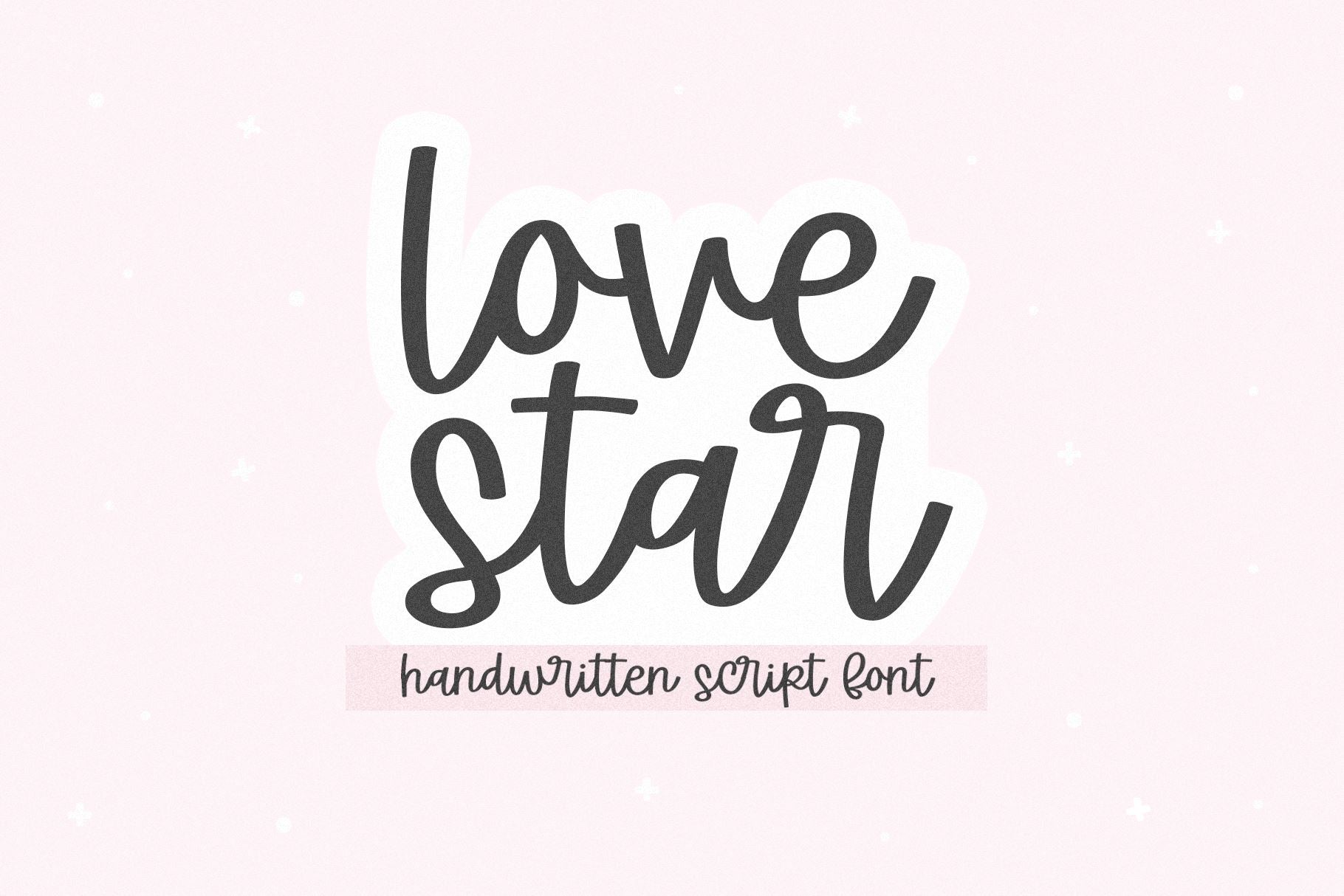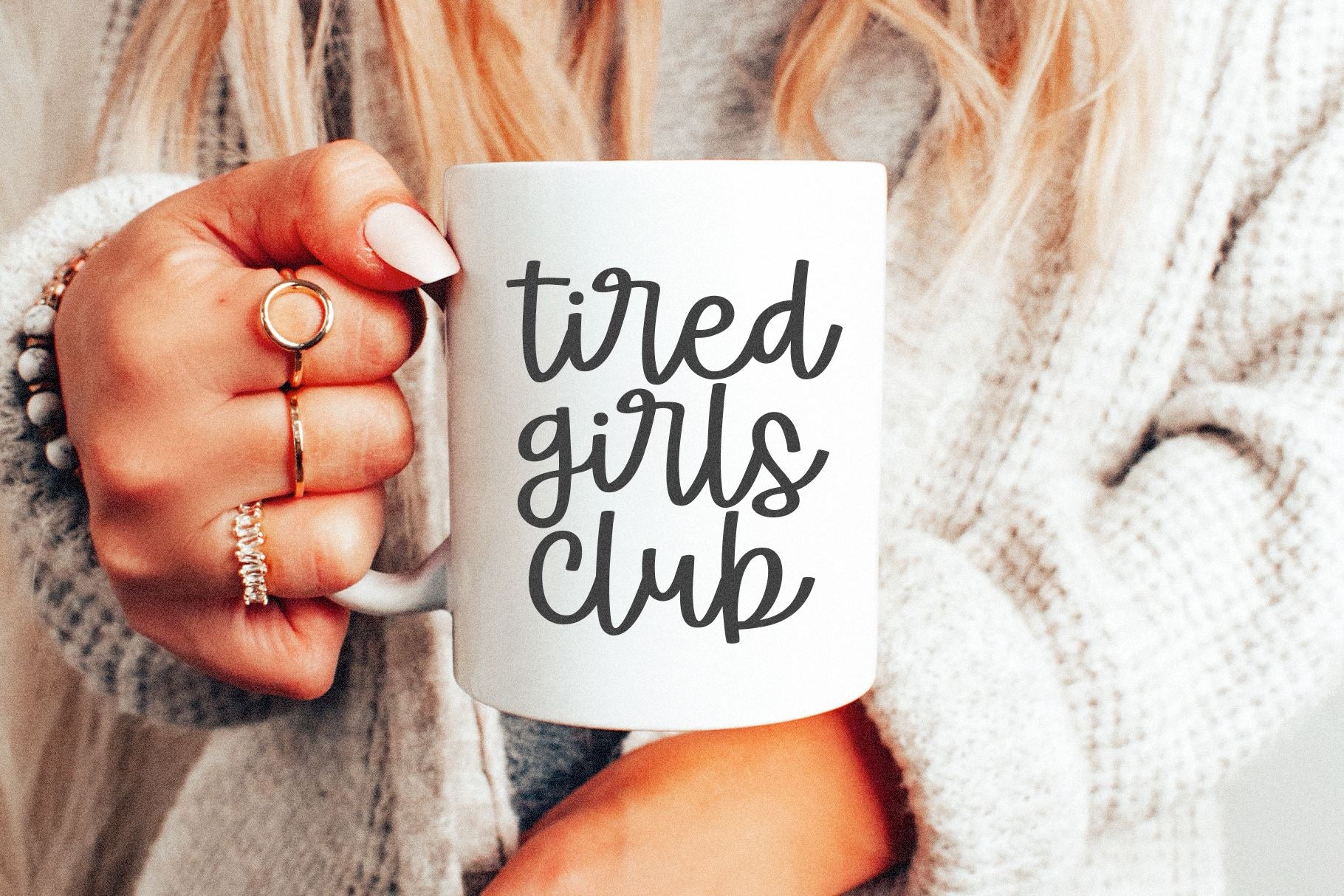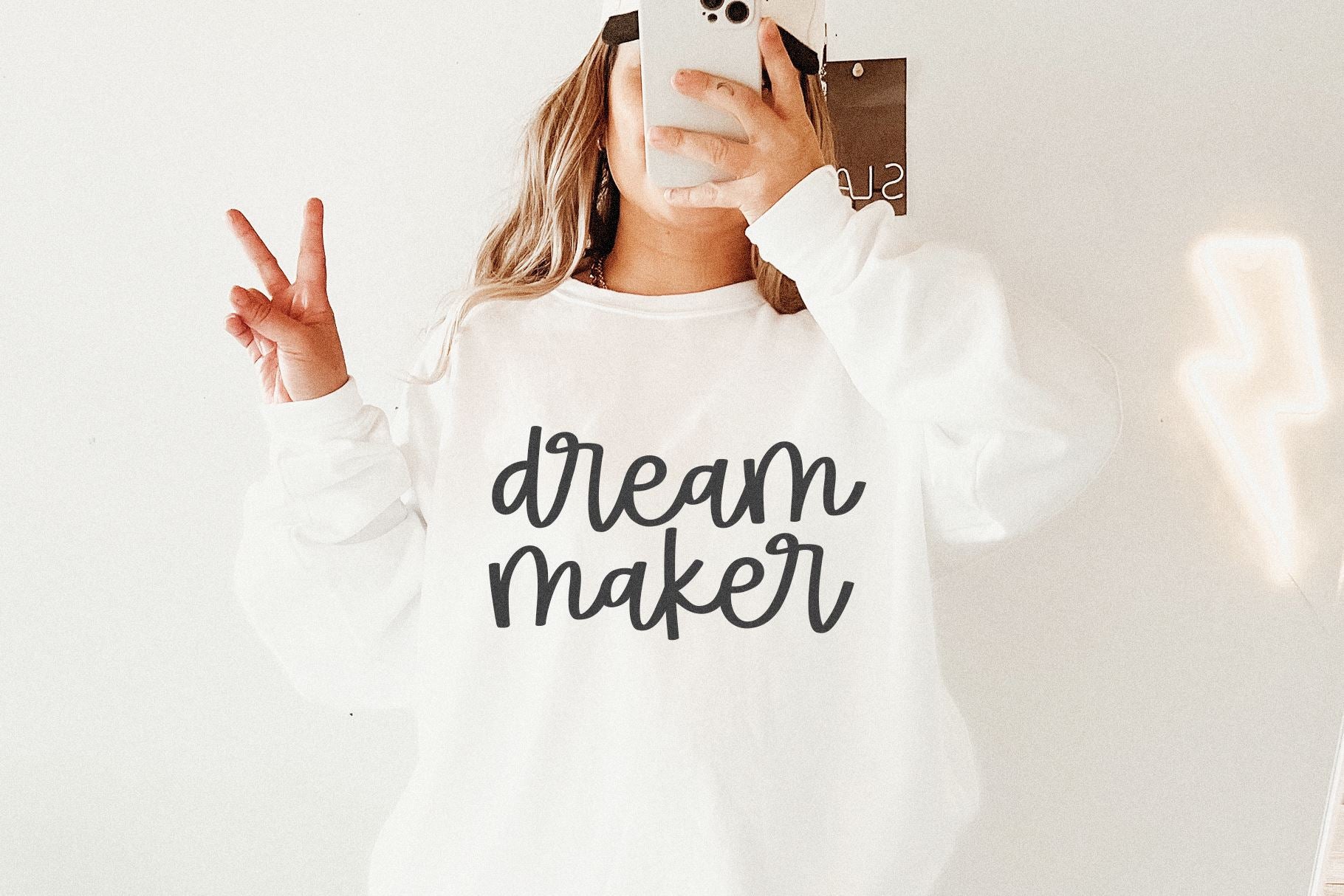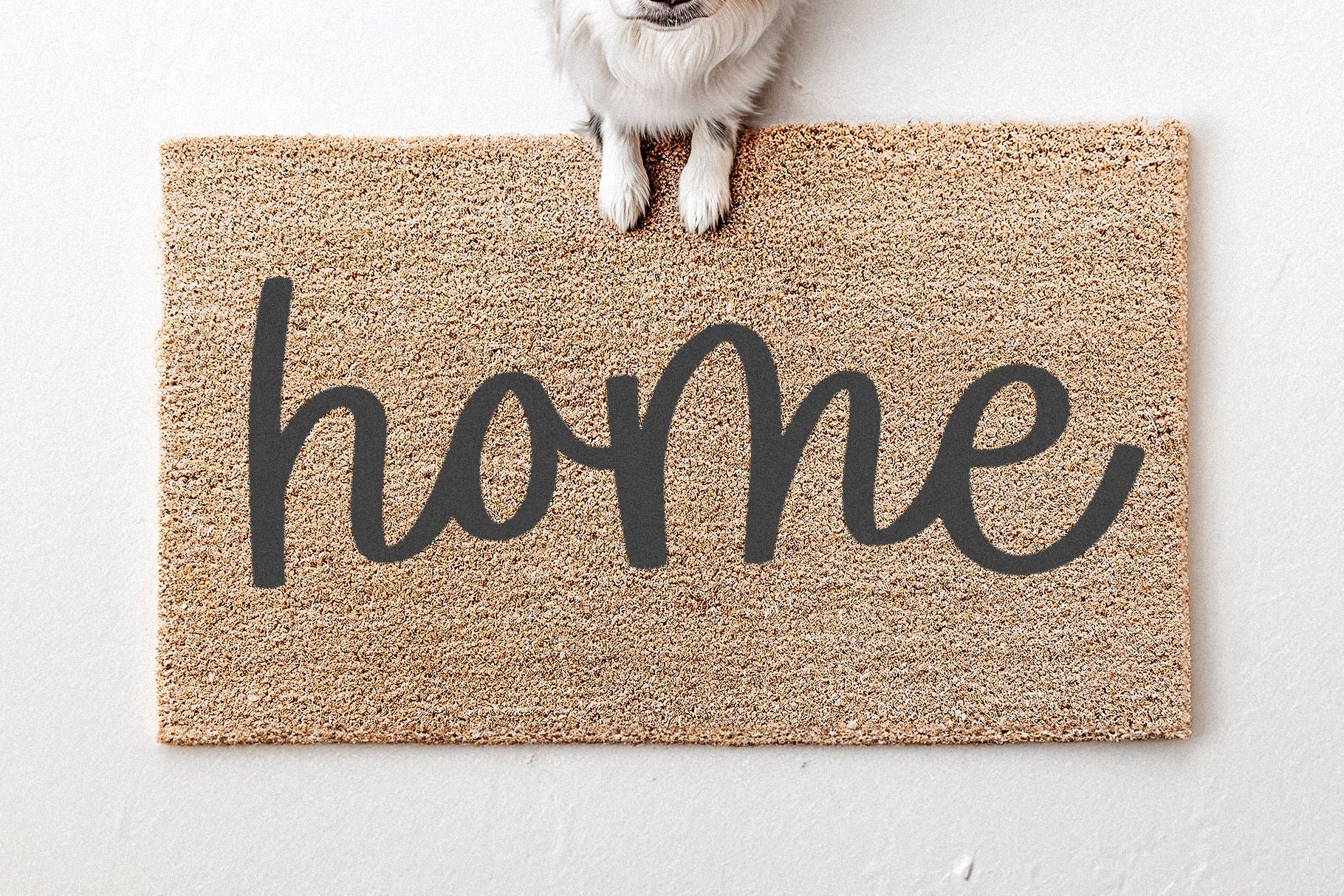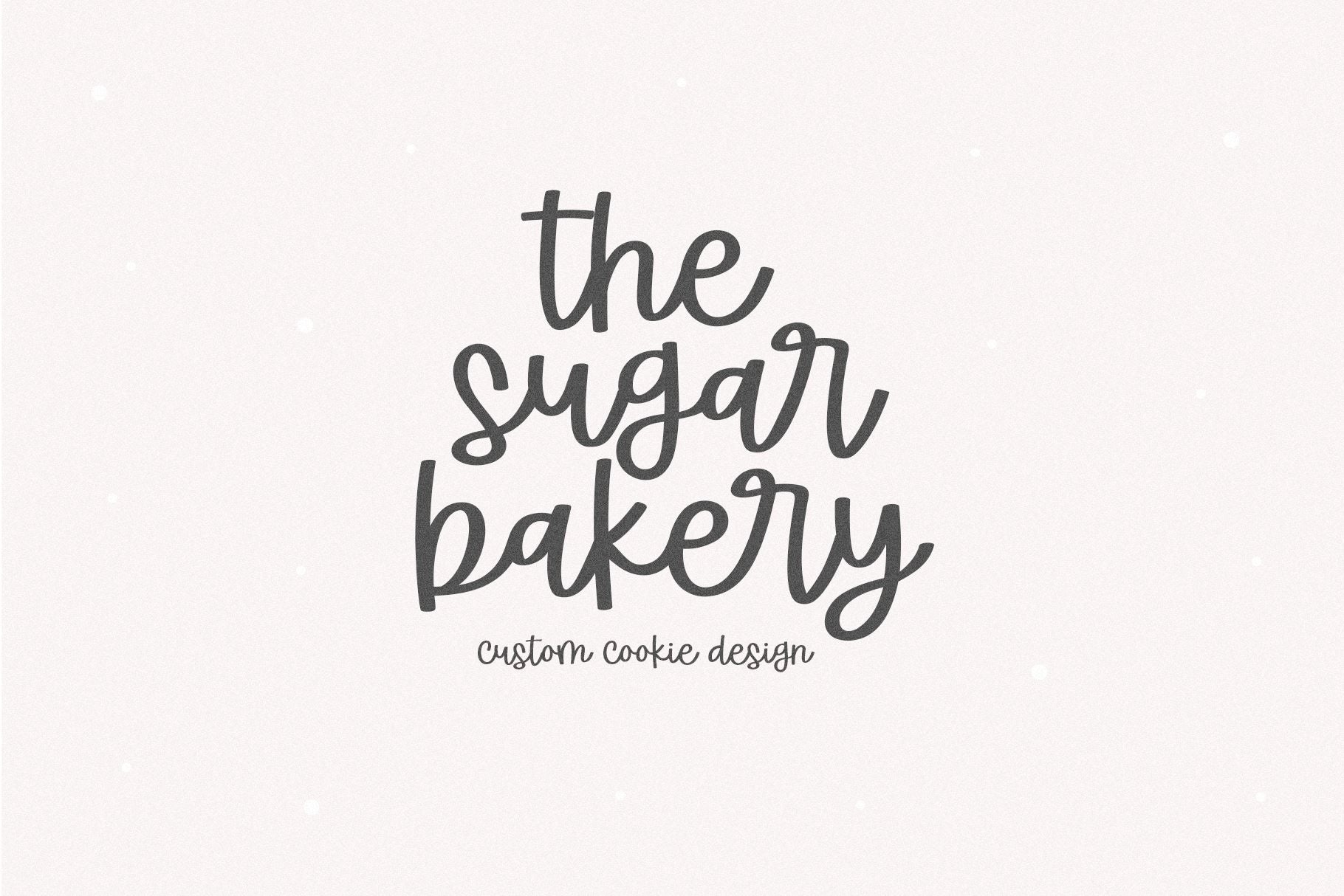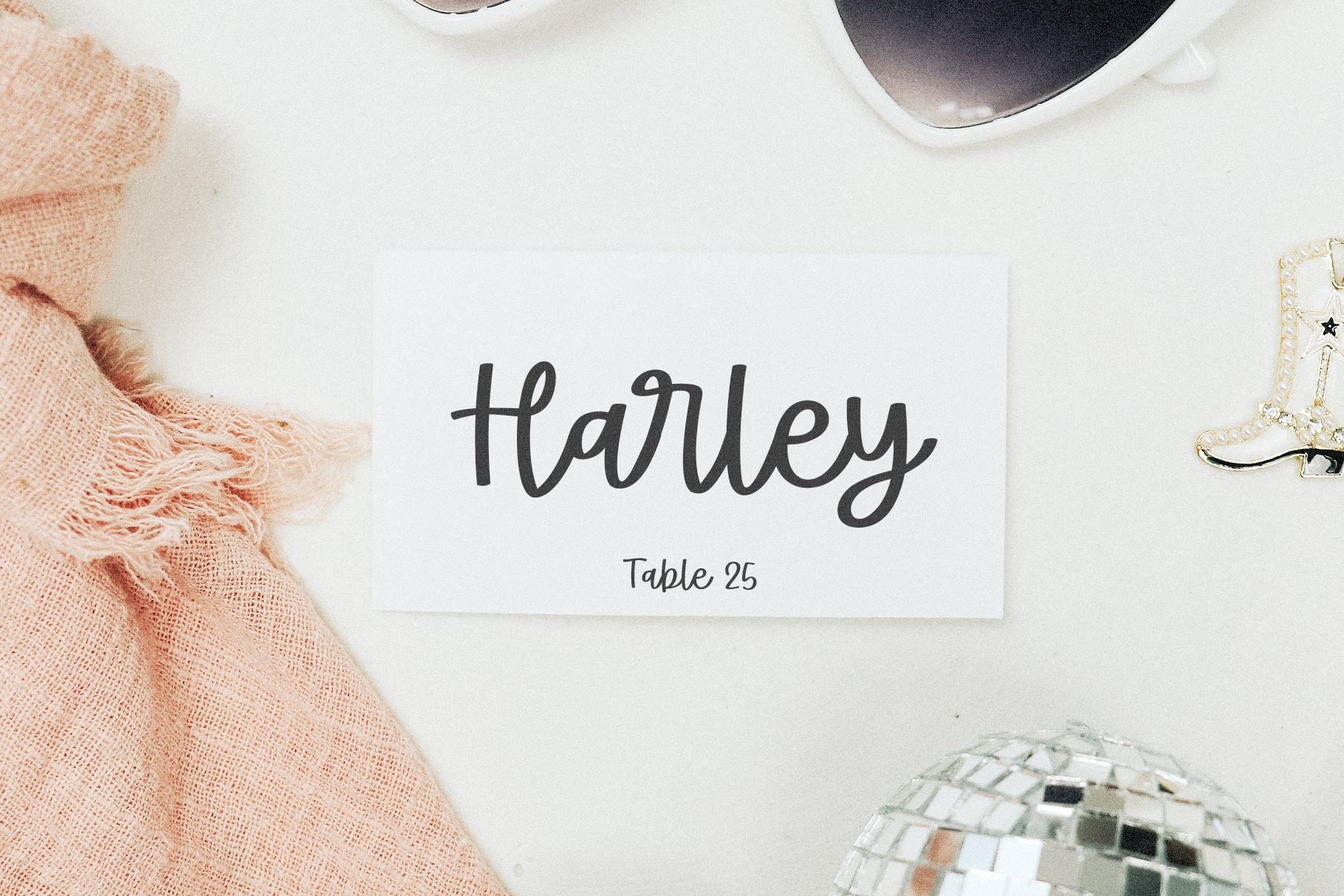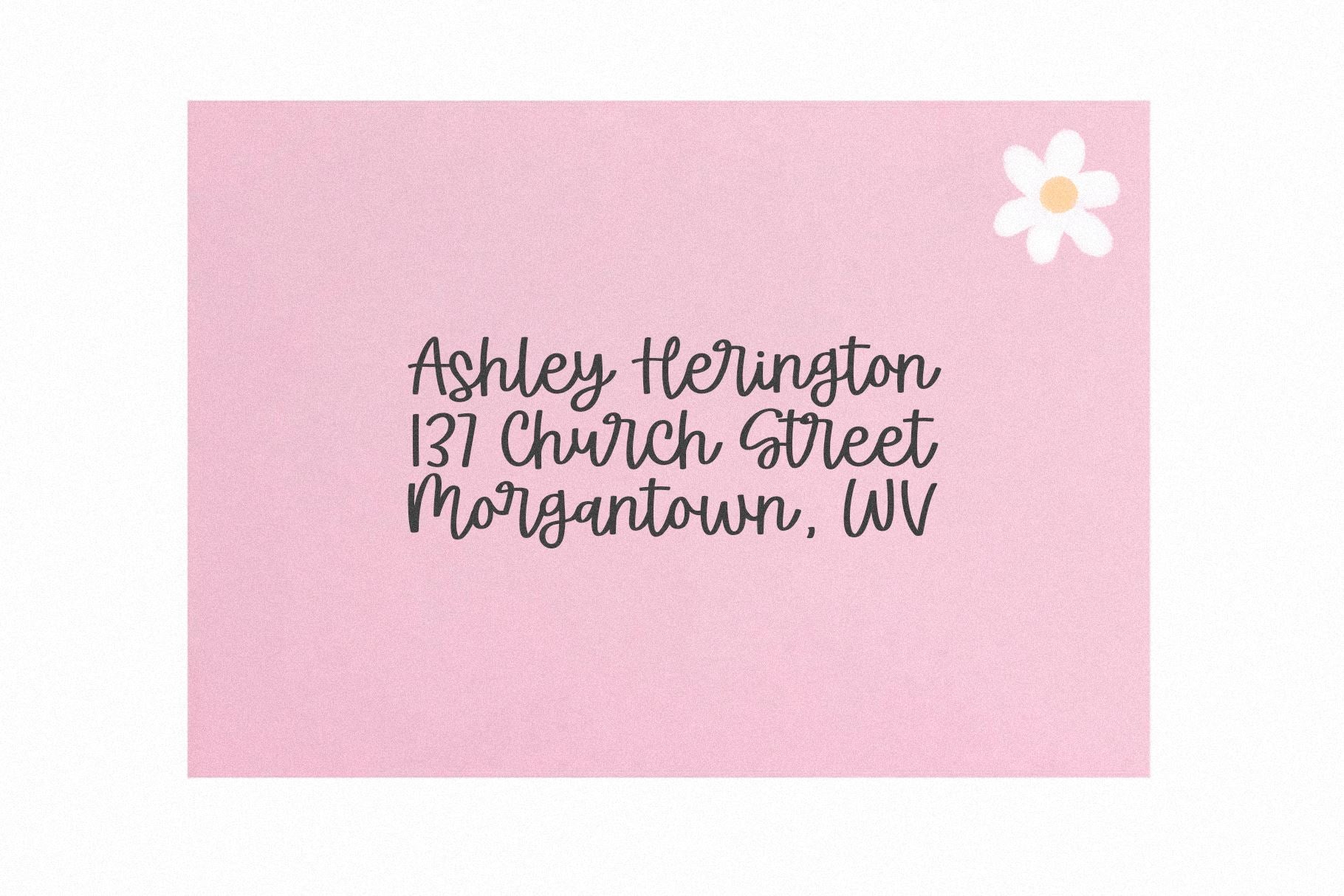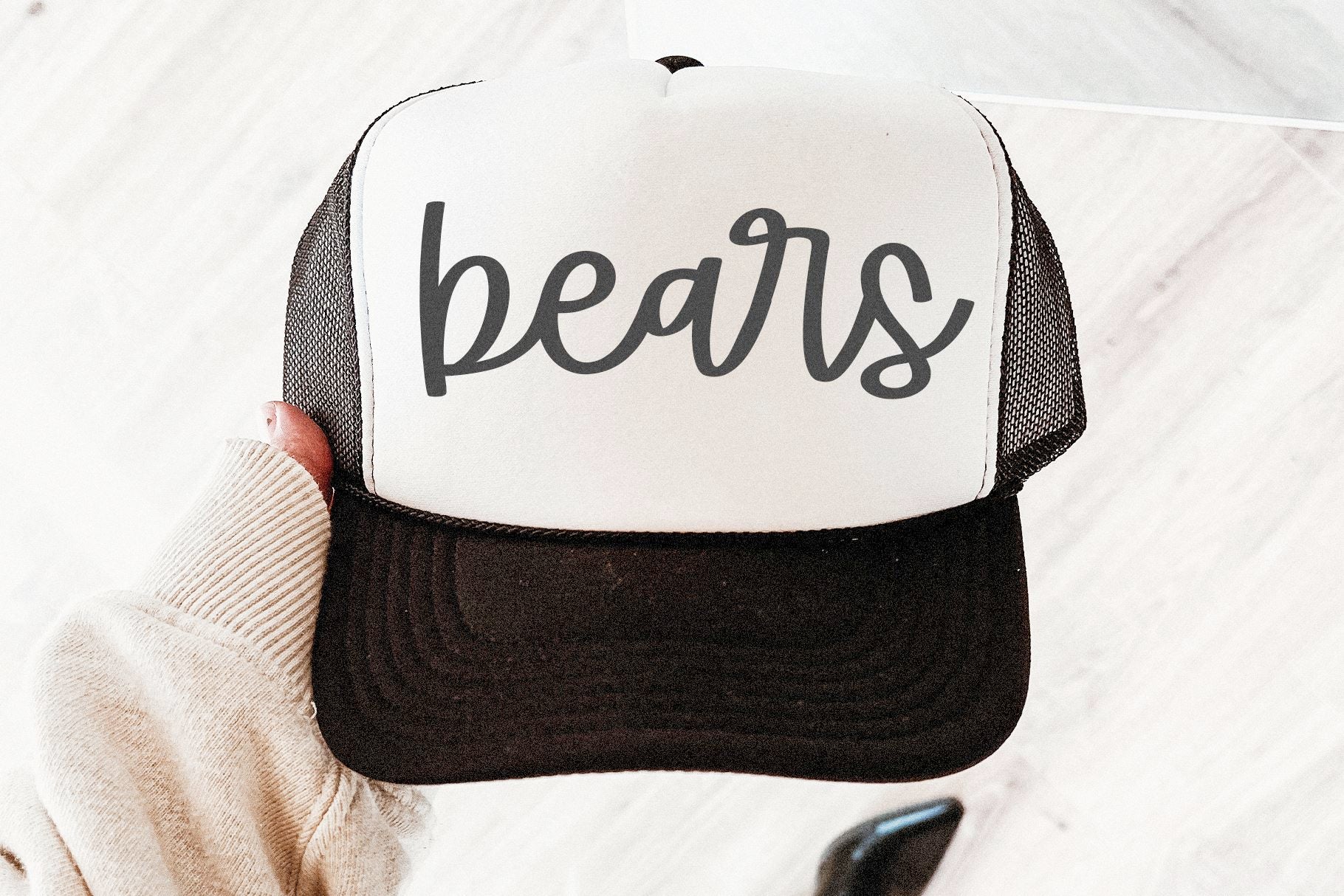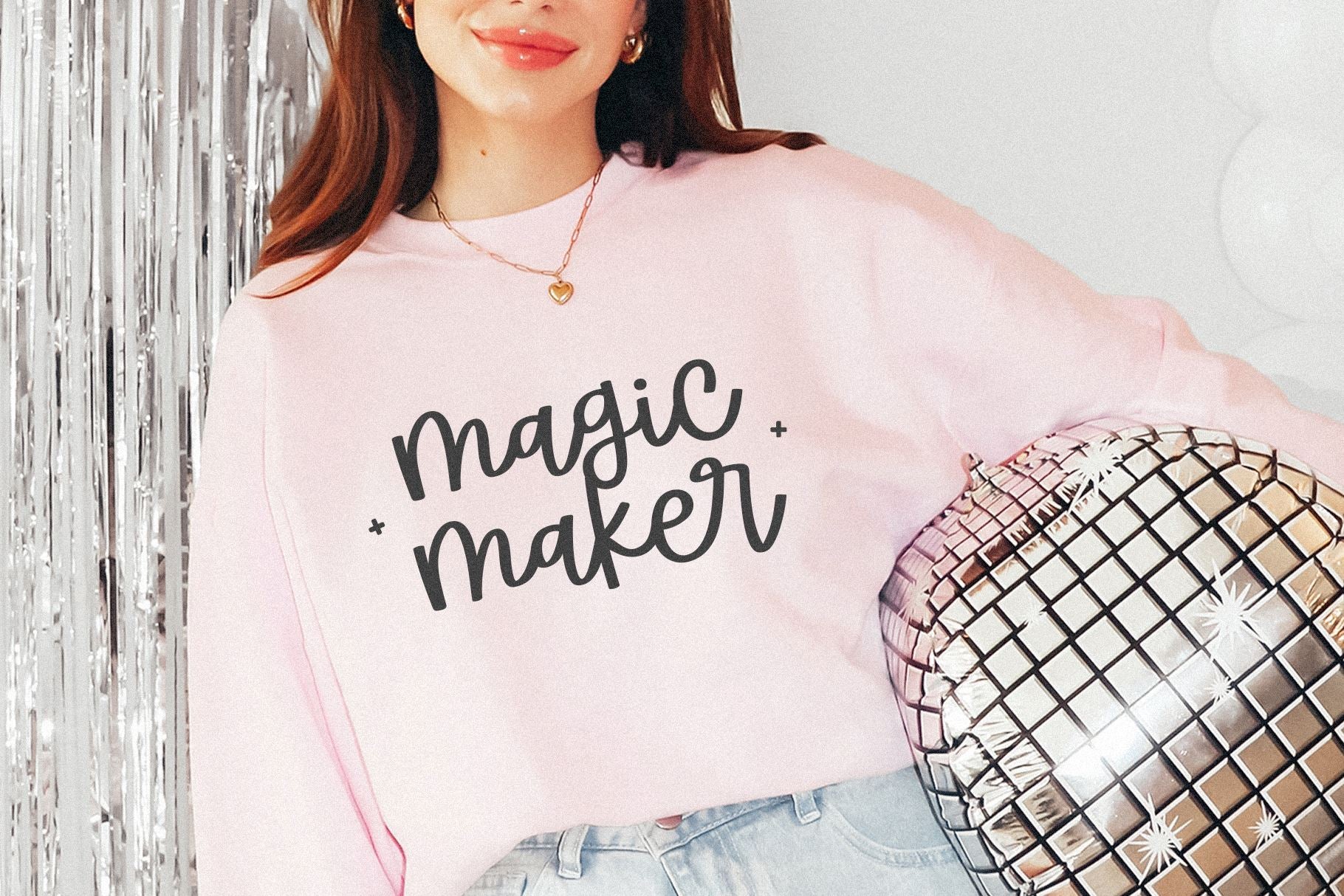
HomeScript FontsLovestar - Cute Script Font Script Fonts Lovestar – Cute Script Font FacebookXPinterestWhatsApp 1 of 10 ... ... ... ... ... ... ... ... ... ... About Lovestar – Cute Script Font LoveStar is a handwritten script font. This font is perfect for logos, branding, farmhouse designs, cricut projects, svg files, canva, goodnotes, stickers, mugs and more! OTF/TTF Thank you! DOWNLOAD NOW People also explored My Pleasure Font Amelie Font Burnt Orange Bella Canvas 3001 Mockup Samantha Calligraphy Font Berkshire Pro MFC Almond Monogram Sands Tropical Duo Font Airmole Hava Shine Font 182 0 TagsLovestar - Cute Script Font Previous articleBishail ScriptNext articleCrafty Olivia LEAVE A REPLY Cancel reply Comment: Please enter your comment! Name:* Please enter your name here Email:* You have entered an incorrect email address! Please enter your email address here Website: Save my name, email, and website in this browser for the next time I comment. Personal Use Free Orchid Personal Use Free Read more about this font Fadhista Personal Use Free Read more about this font Miracles Personal Use Free Read more about this font Welliana Personal Use Free Read more about this font BLOG How to Cut Any Font on Cricut: Convert a Font to SVG (Free) Turn any font into a clean SVG so it cuts crisp on Cricut - a quick 3-step workflow using a free font-to-SVG tool. Best Fonts for T-Shirt Design – Top 2025 Picks Exploring Font Trends Where to Buy American Fonts Online in 2024